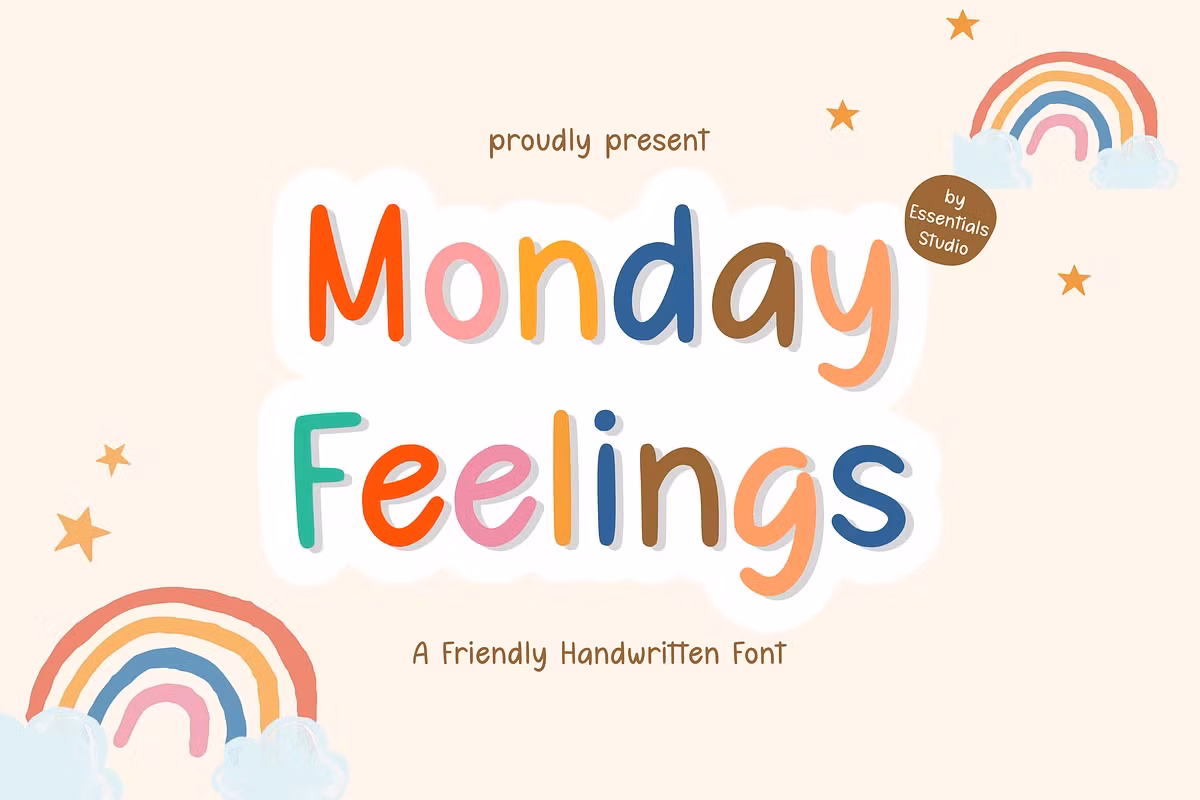
Start the week with style using the Monday Feelings Font Free Download — a charming handwritten script that captures the relaxed, expressive vibe of slow mornings and fresh starts. With its flowing strokes and casual elegance, this font is perfect for quotes, planner designs, social media graphics, lifestyle branding, and personal projects.
Monday Feelings brings a soft and uplifting energy to your typography, making every word feel more personal and relatable. Whether you’re designing for a cozy blog, a self-care brand, or a handwritten-style logo, this font adds warmth and authenticity.